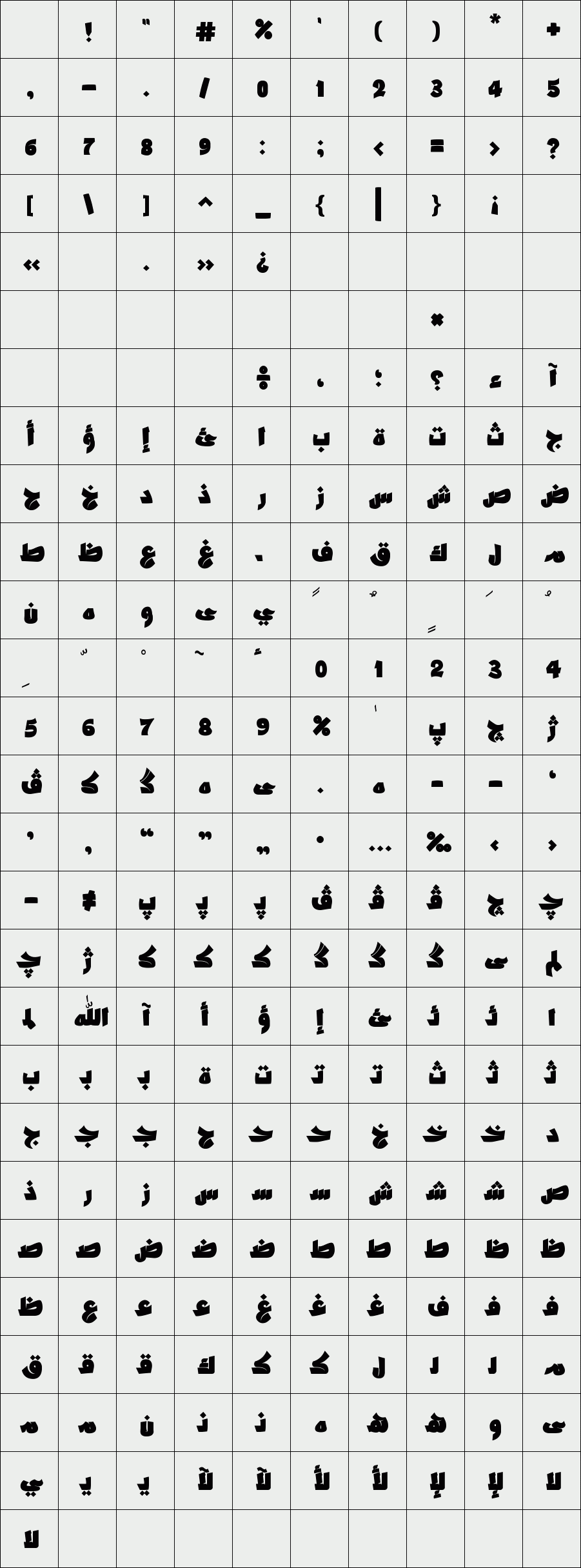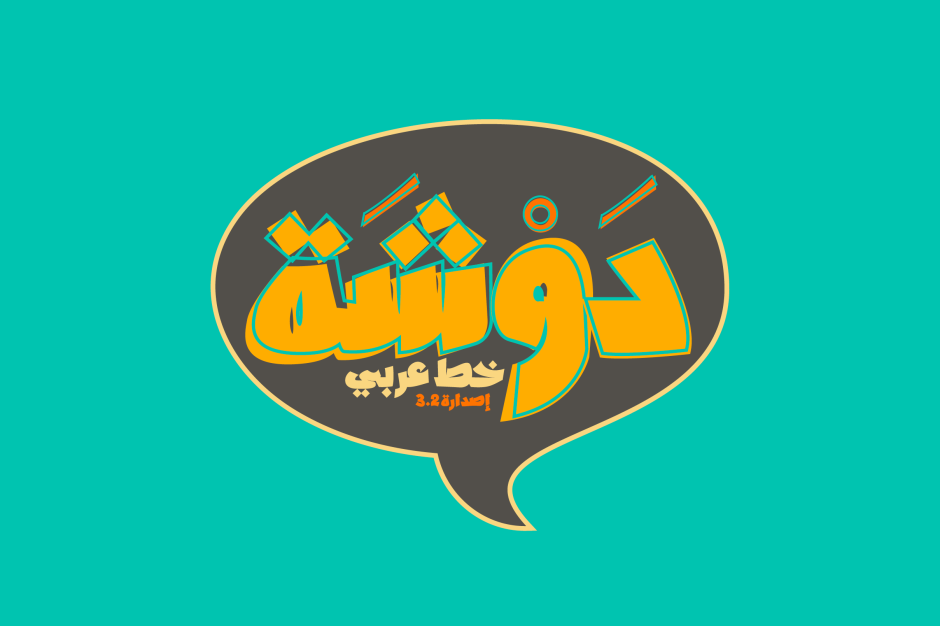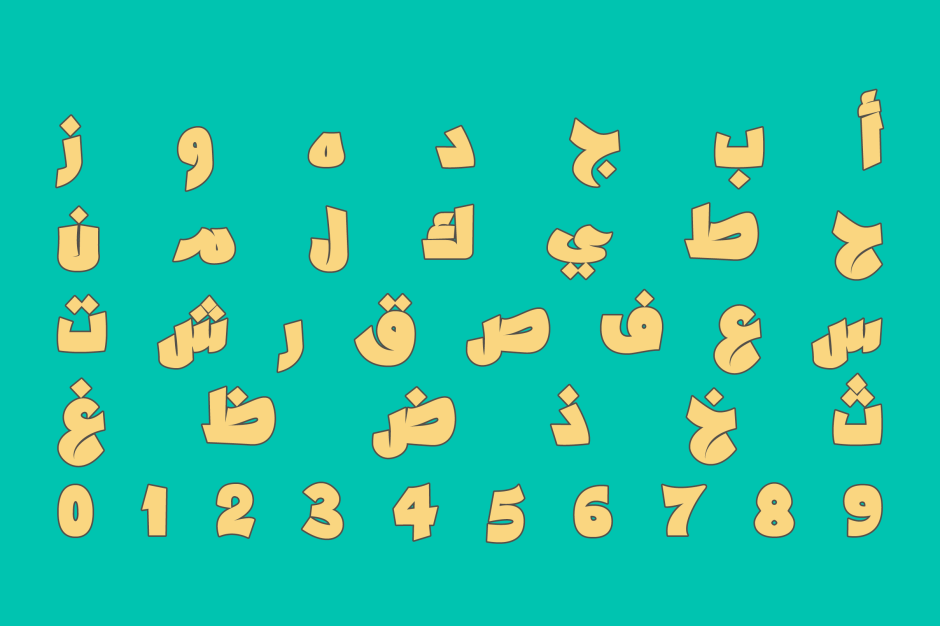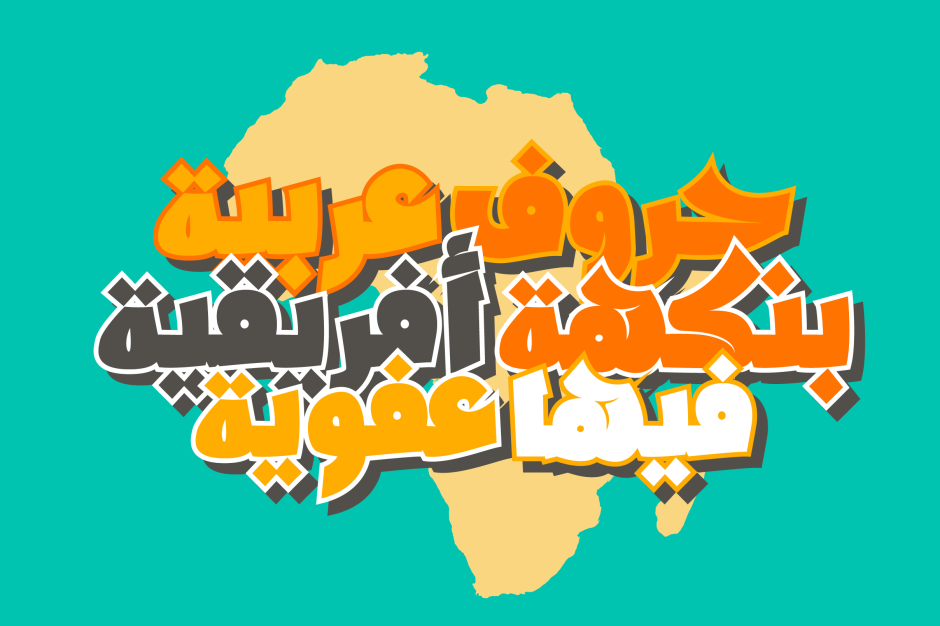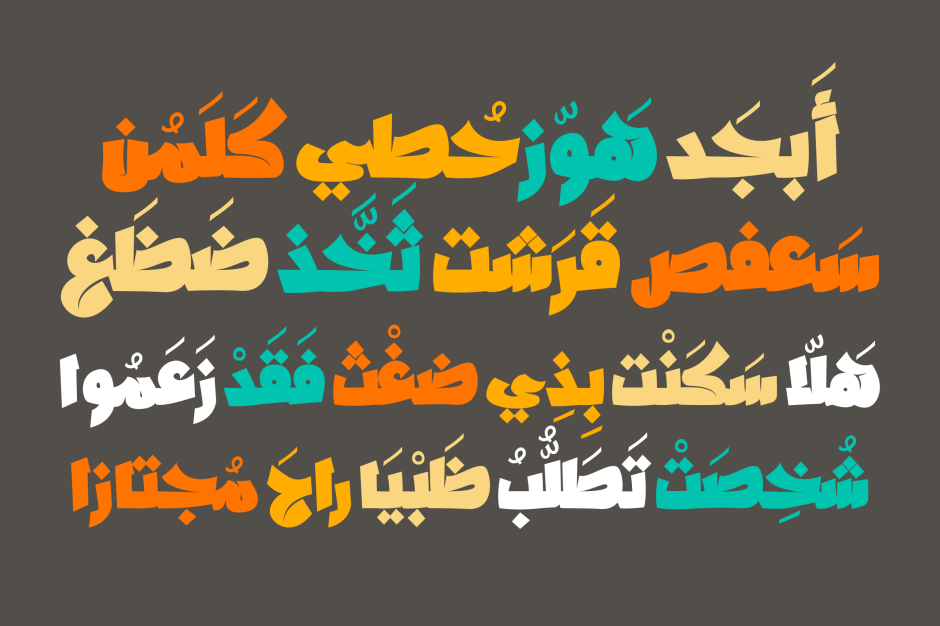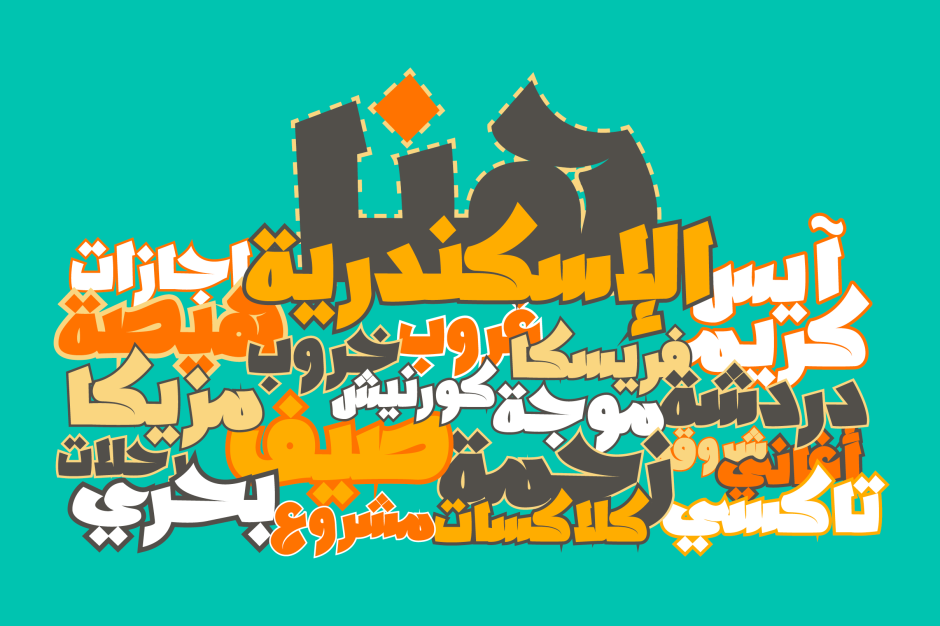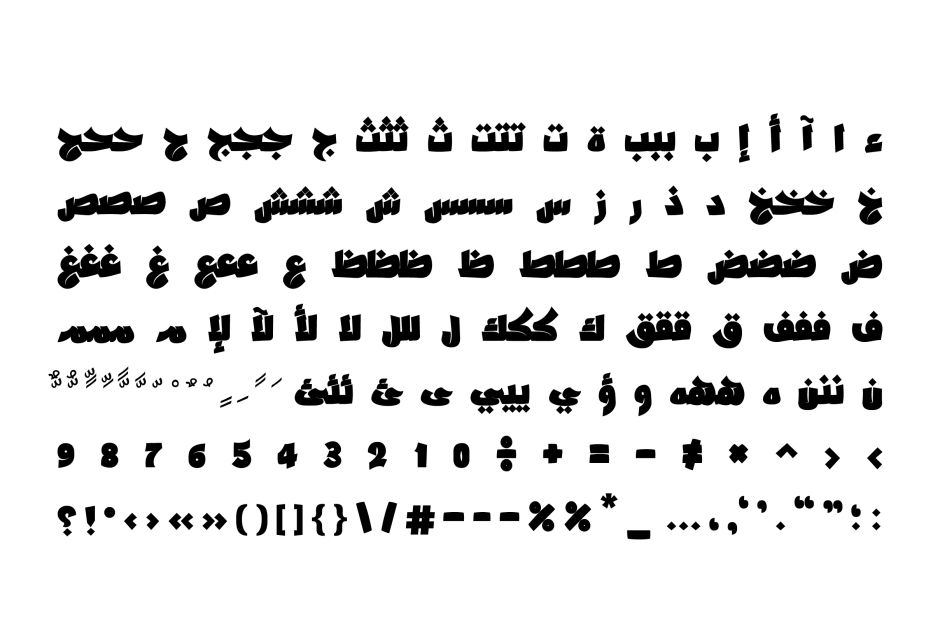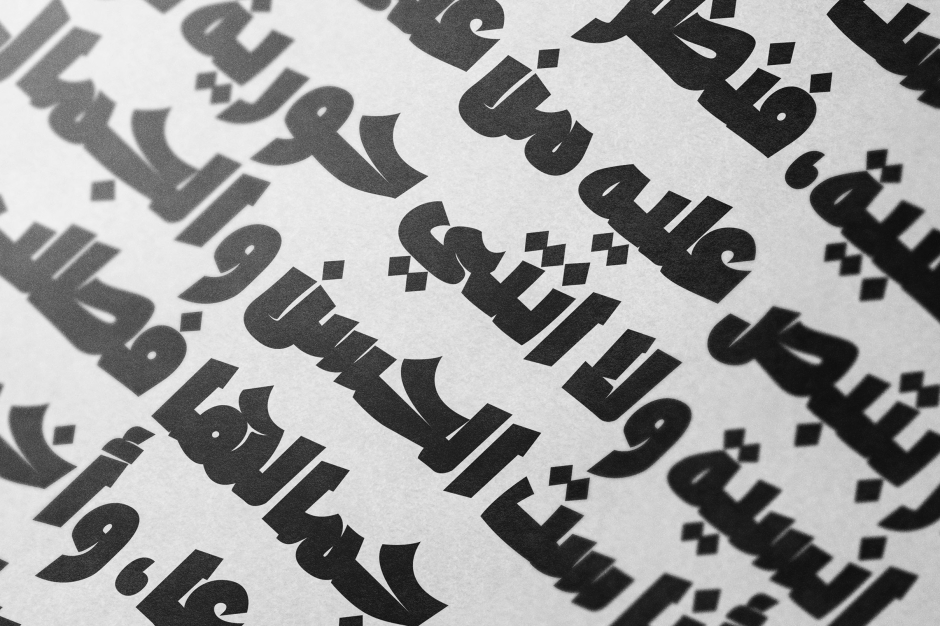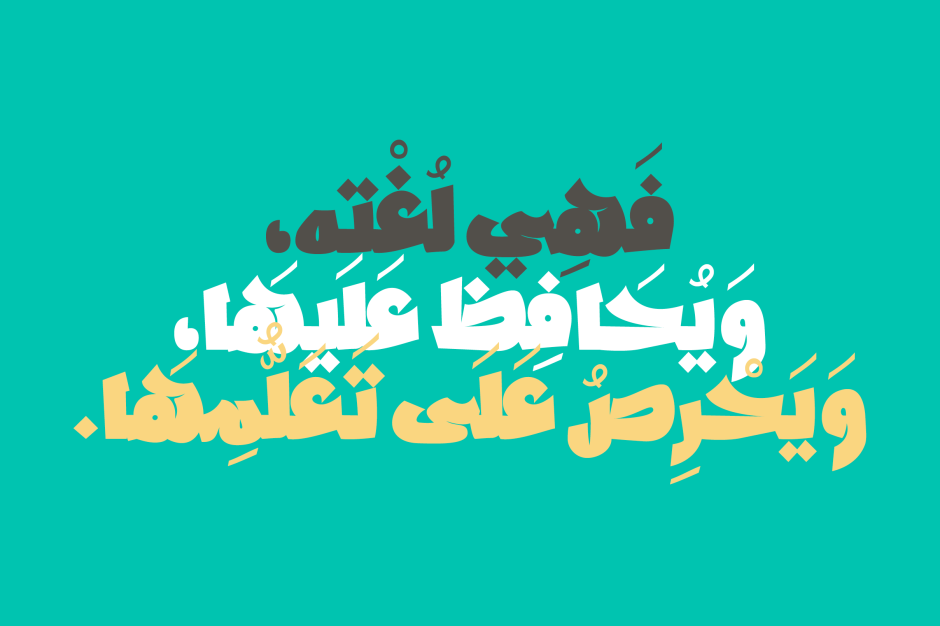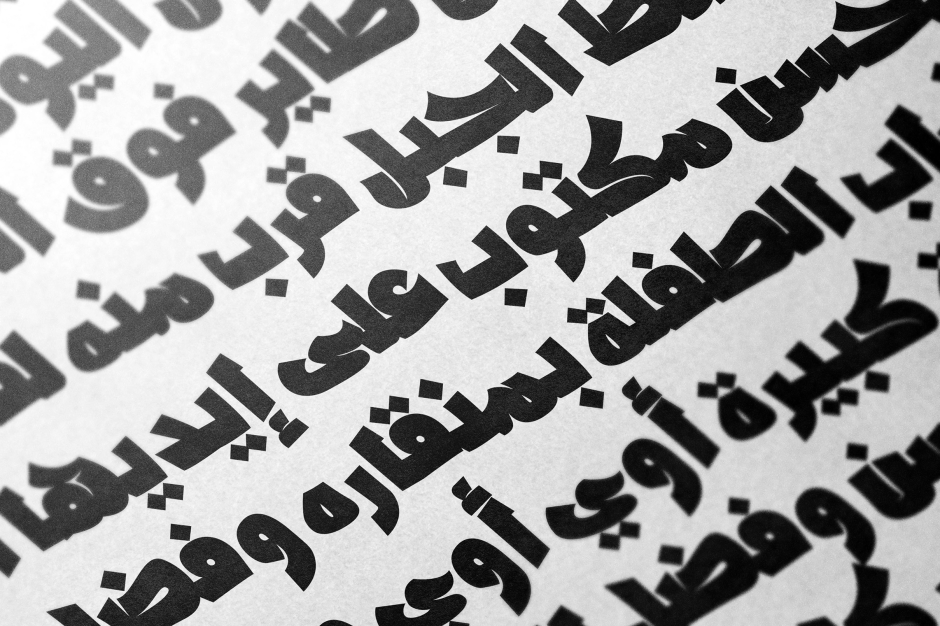
Dawshah
In Arabic, The word ‘Dawshah’ has few meanings between making noise and unseeing. Dawshah is an Arabic display font that is mainly designed for casual titling. It is heavy and sponteniously styled to have the ability to communicate texts loudly. Dawshah suits logotypes, T-shirt typography, events, book covers and other creative projects.